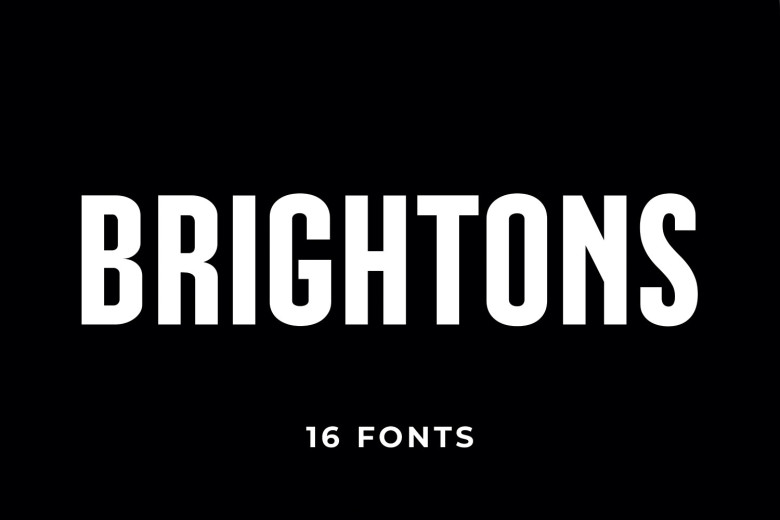
“BRIGHTONS” Typeface Family will add versatility and style to your designs, providing 16 distinct styles specifically curated to meet design specifications. We are delighted to introduce “BRIGHTONS” Typeface Family! We invite you to experience its many possibilities for enhancing designs with flair! Brightons stands out as an impressive combination of stunning design and contemporary aesthetic, making it the ideal solution for various uses such as banners, posters, advertisements, newspapers, magazines and web designs.
Every style in the BRIGHTONS Typeface Family boasts its own individual charm and function to help you easily communicate the desired voice and content within your designs. From sophisticated and sleek to bold and eye-catching BRIGHTONS is an ideal choice for all kinds of designs.
Each typeface in the BRIGHTONS Typeface Family boasts its own distinct character and purpose, enabling you to easily convey any tone of voice or content through designs. From sophisticated and stylish to striking and captivating BRIGHTONS offers something for every style.
Add BRIGHTONS to your designs for endless creative potential and make an impressionful statement about who you are as an individual – take advantage of it now and watch as your typography blossoms with this stylish yet versatile typeface family! BRIGHTONS Typeface Family offers versatility of font meeting style – experience its evolution for yourself today and see its results on typography!
Brightons Sans Serif Font